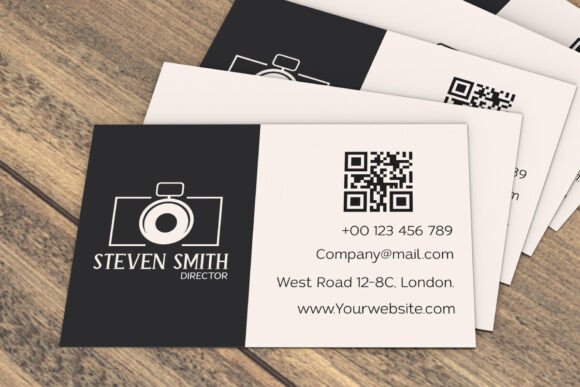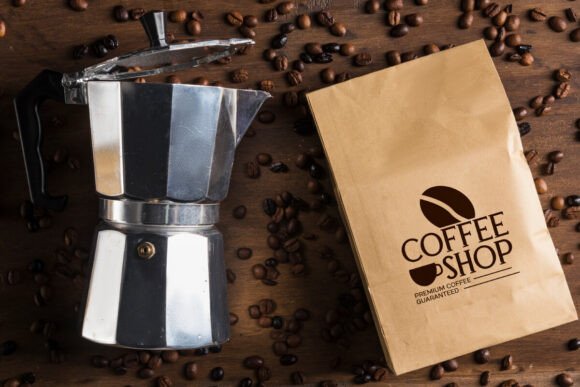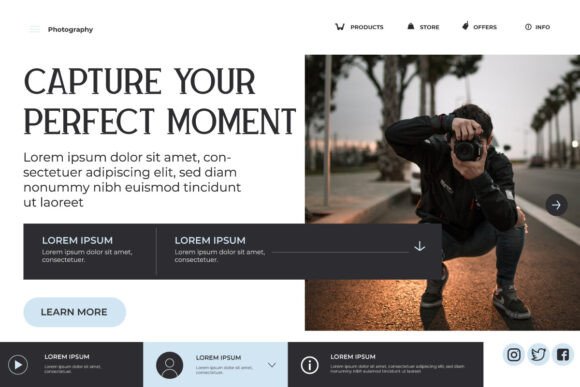
Introduction to Morgamon Font
Morgamon Font is an attractive, manly serif display font.
This font is similar to the Serif type in general, but made unique to make it an interesting differentiator It will work well in many designs, such as brand image, custom design, invitation, label, menu, poster, product packaging, quote, signage, stationery, web, and more.